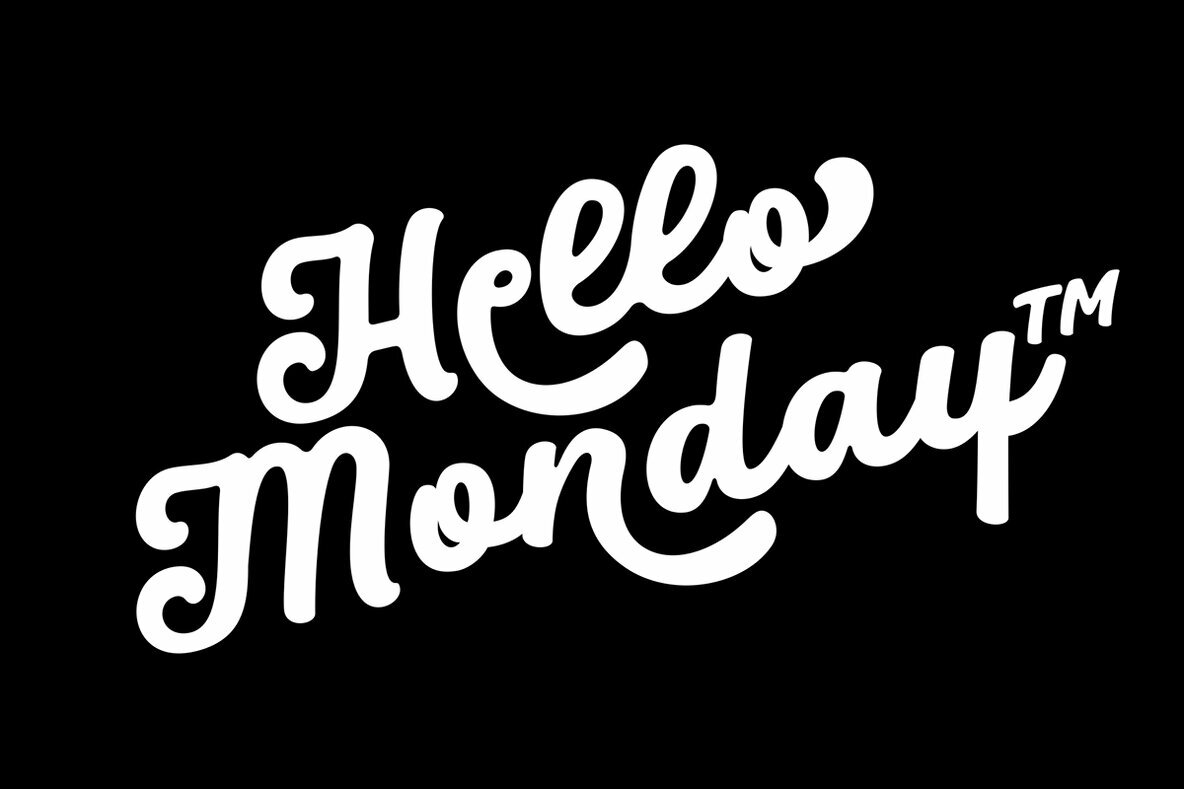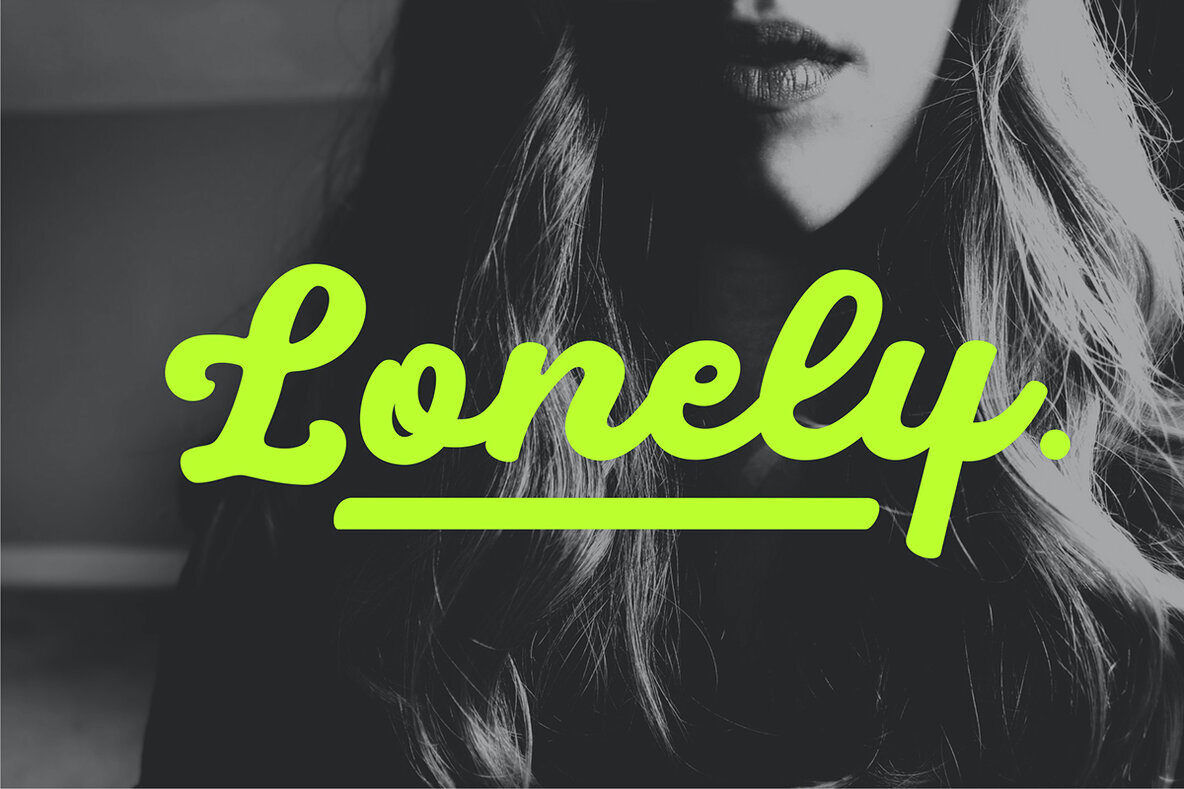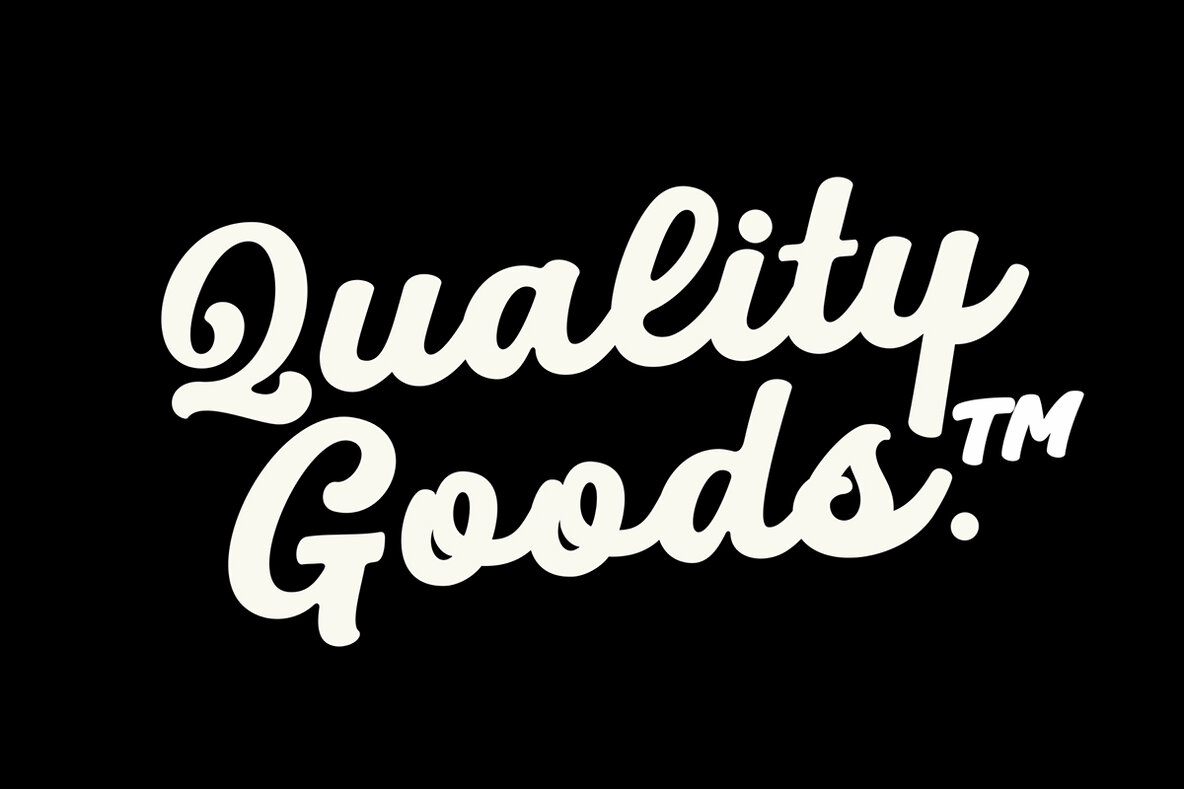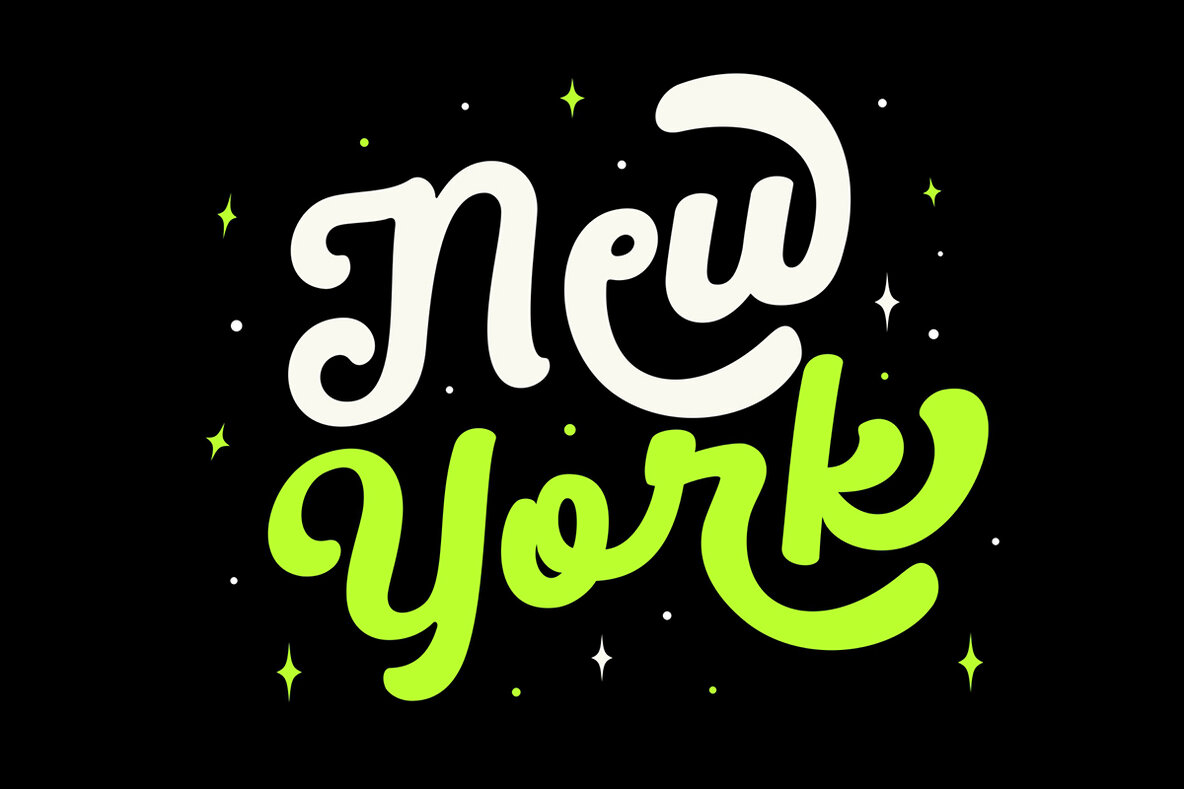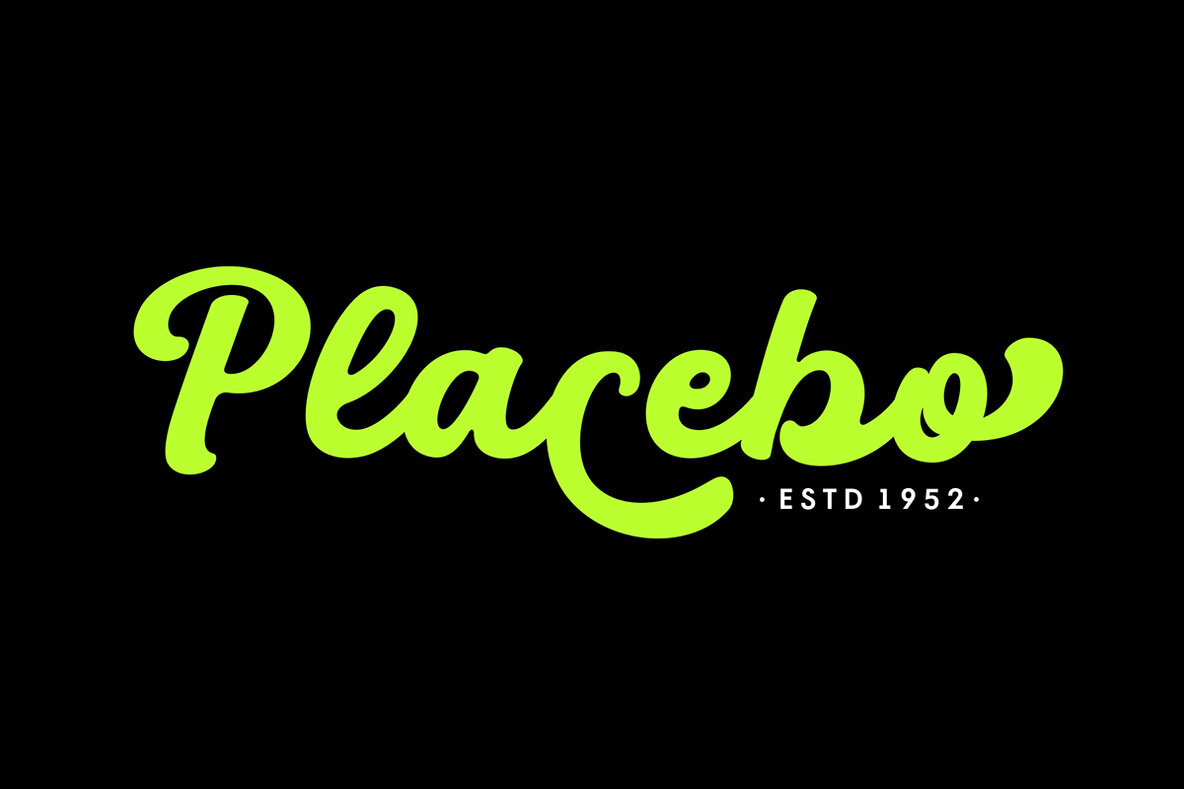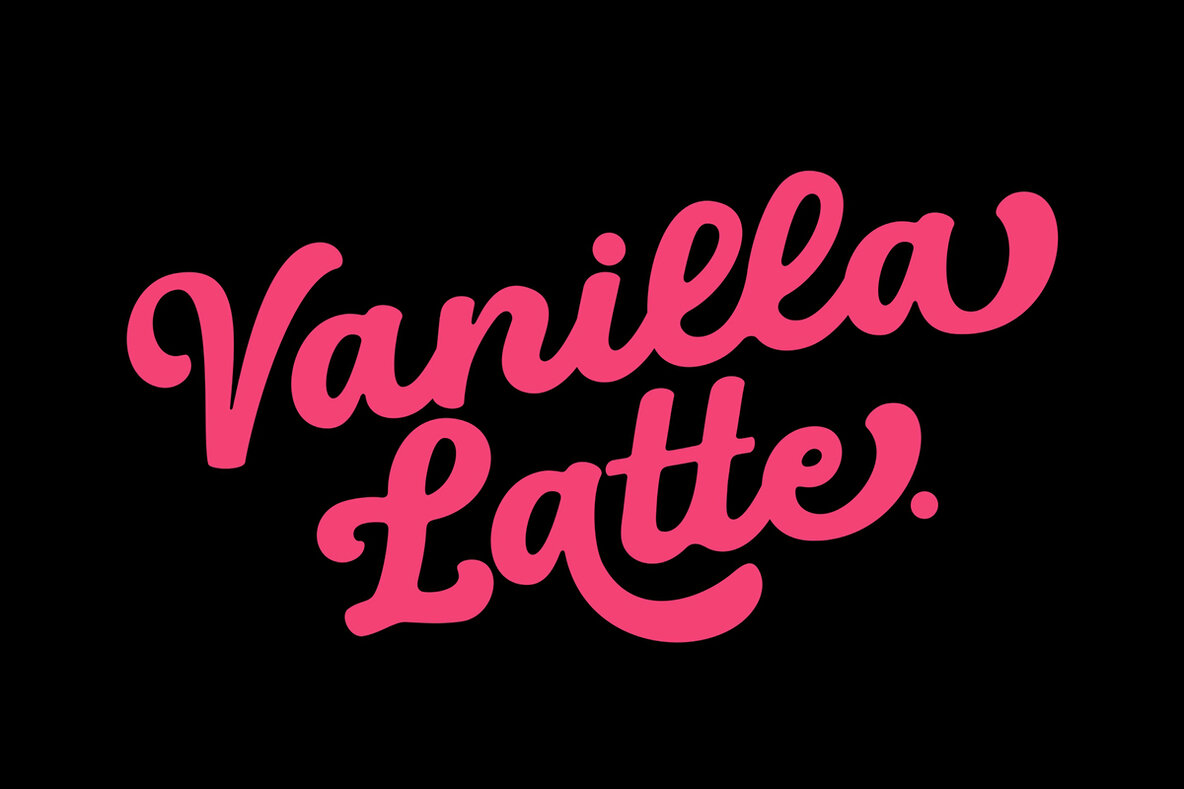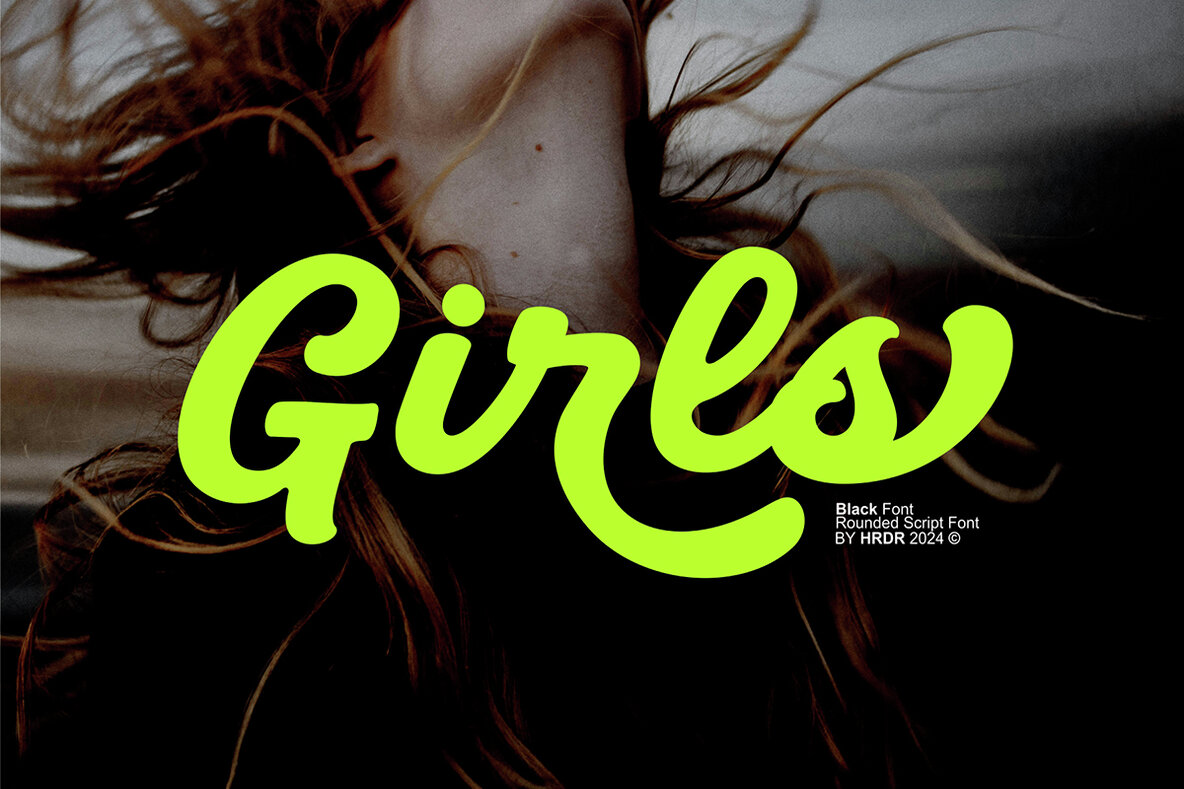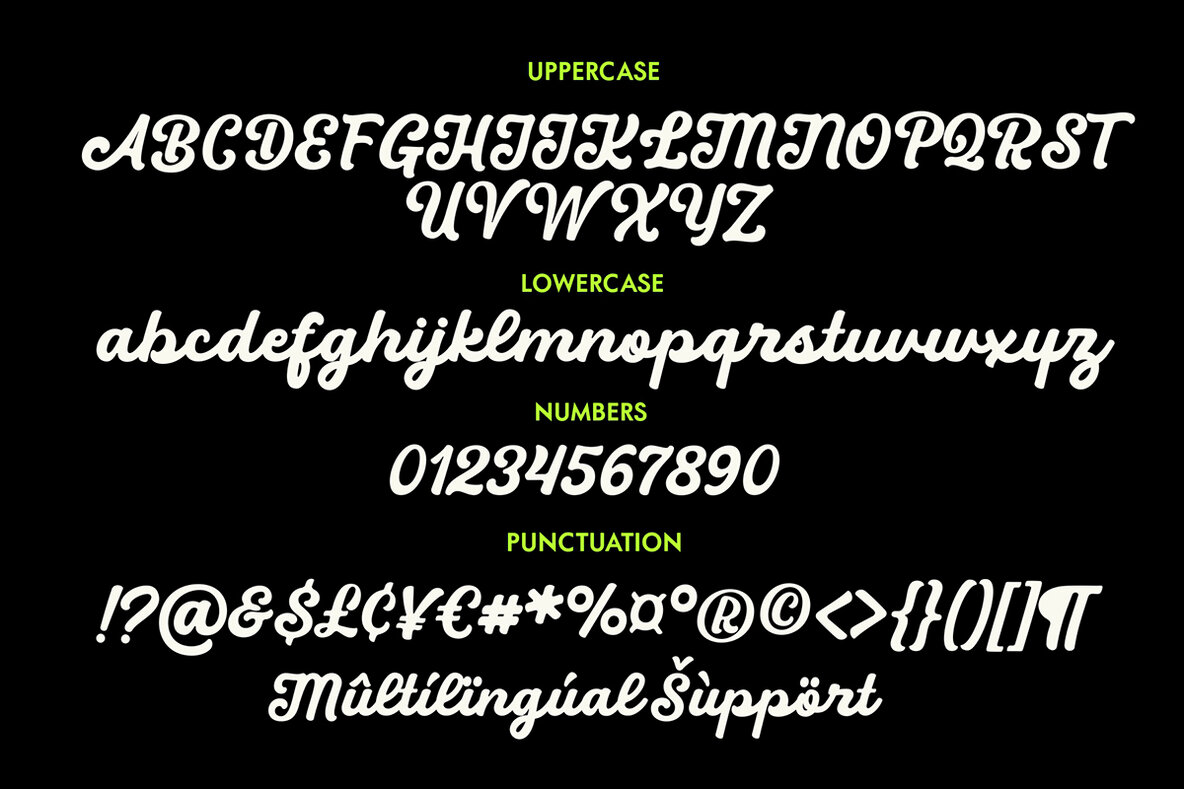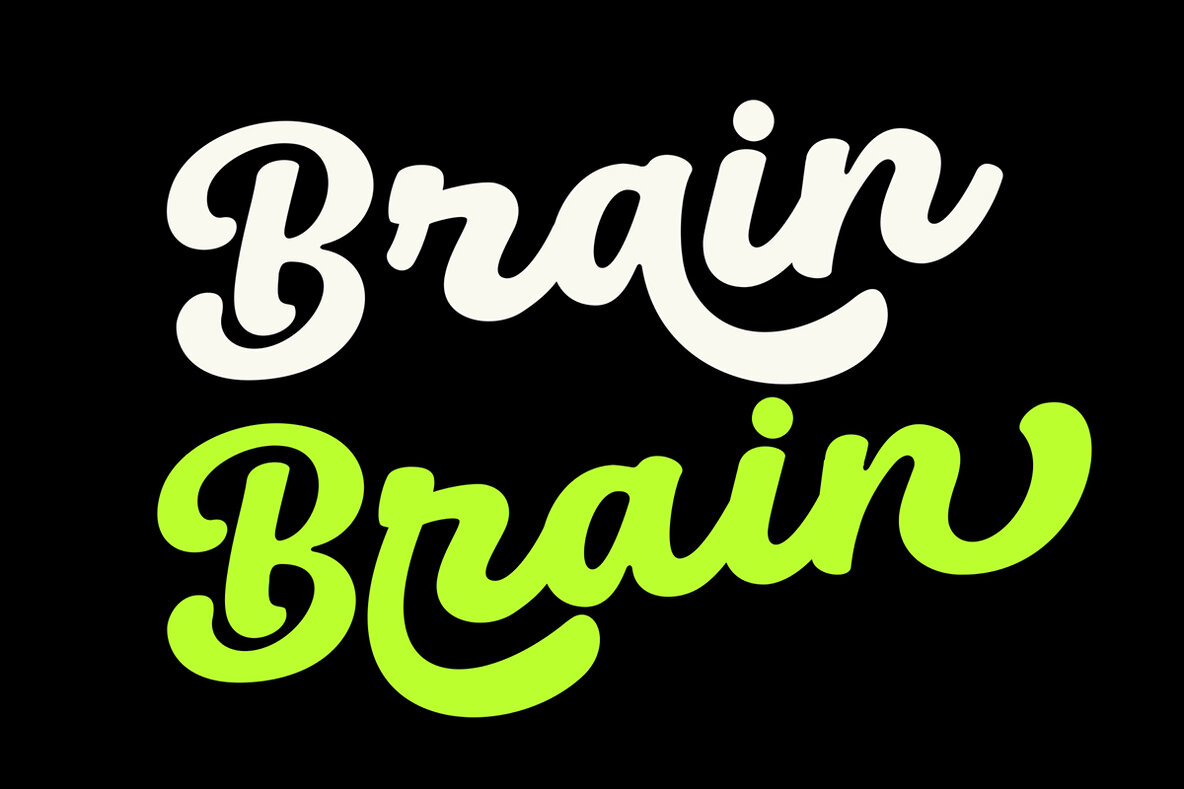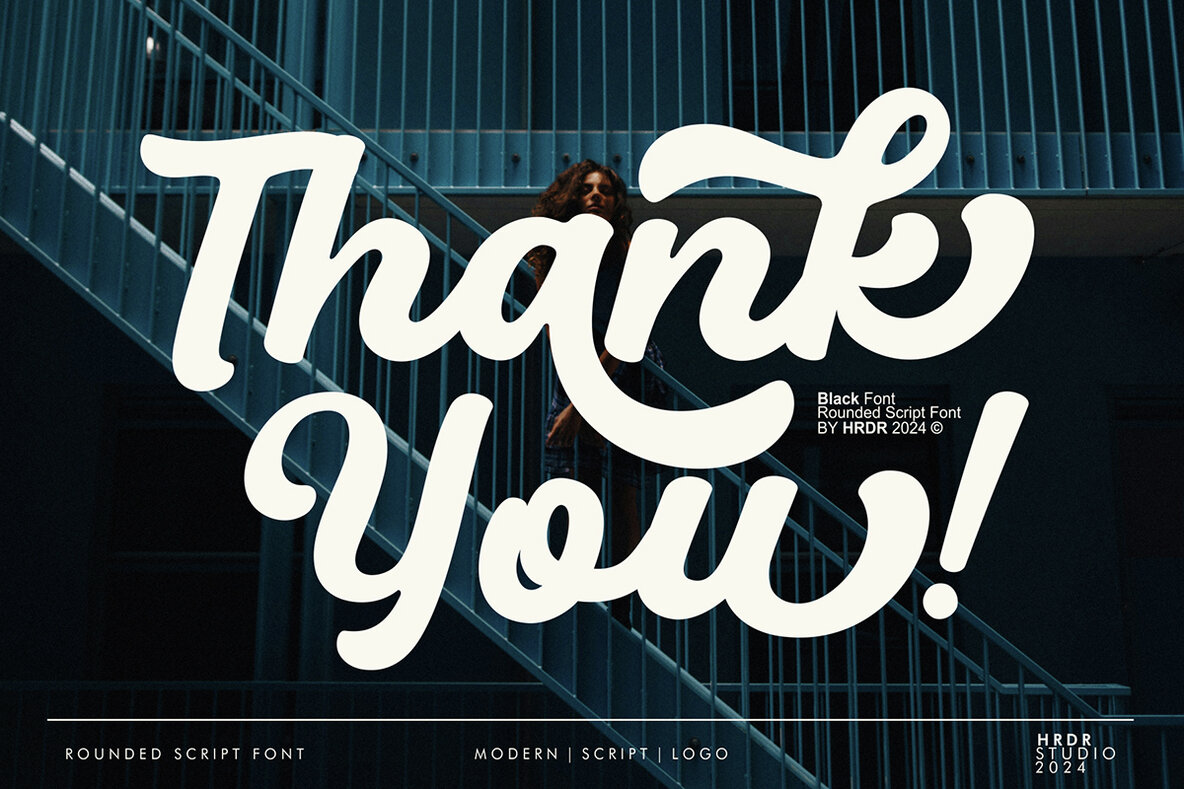
Black Font
Black Regular
"Meets Black" is a bold, curvy script font that combines retro charm with elegance. Its handwritten style brings a personal and expressive touch, making it perfect for designers working on eye-catching headlines, artistic logos, creative branding, and playful posters. The font is ideal for those who want to create a fun and unique impression in their design projects.
Key features of the font include uppercase and lowercase letters, numeric and multilingual support, ligatures, and stylistic alternates (Ss01, Ss02, Ss03, Ss04). Additionally, the font files are PUA encoded, ensuring compatibility with software that doesn’t support OpenType features, such as Silhouette and Inkscape.